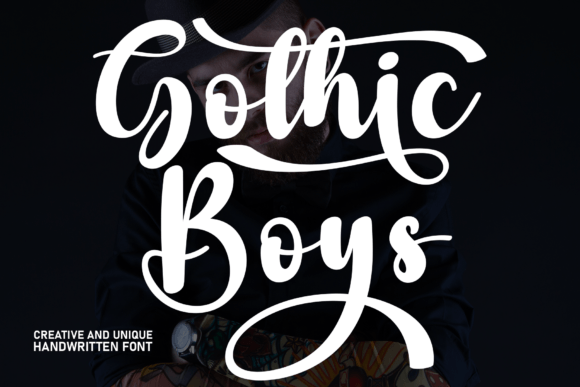
Dive into the realm of typography with Gothic Boys Font, a captivating script font brimming with charm and character. This enchanting creation by William Jhordy is a true gem for designers seeking a touch of whimsy and uniqueness in their projects.
Picture the joy of crafting exquisite wedding invitations adorned with Gothic Boys Font's elegant swashes and flowing curves. Its playful nature adds a touch of delight to any card, whether it's for birthdays, anniversaries, or simply sending warm greetings. Unleash your creativity and design enchanting posters and flyers that capture the hearts of your audience.
Gothic Boys Font's versatility extends beyond the realm of paper. Bring your digital creations to life with this remarkable font. Create eye-catching social media graphics that resonate with your followers, or design captivating logos that leave a lasting impression. The possibilities are endless with Gothic Boys Font as your companion in design.
Step into a world of imagination and let Gothic Boys Font guide your creative journey. Its enchanting style adds a spark of magic to any project, transforming ordinary words into works of art. Embrace the beauty of handwritten charm and make a statement with every design you create.
Gothic Boys Font is not just a font; it's an expression of your individuality. Its unique style reflects your desire to stand out from the crowd and create something truly exceptional. Experience the joy of designing with a font that speaks to your soul and captivates the hearts of those who behold it.